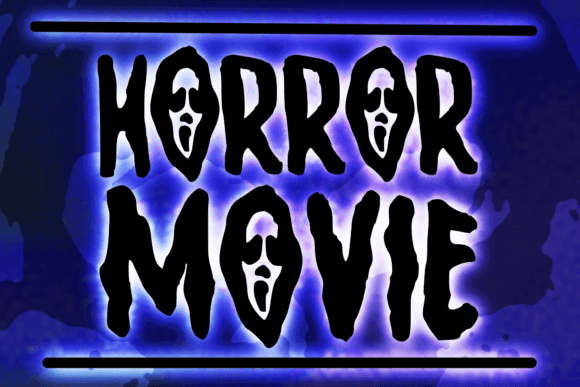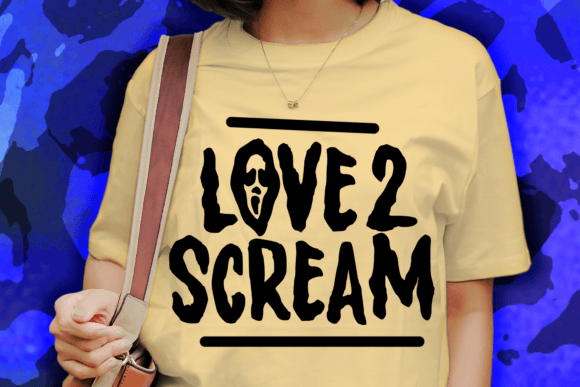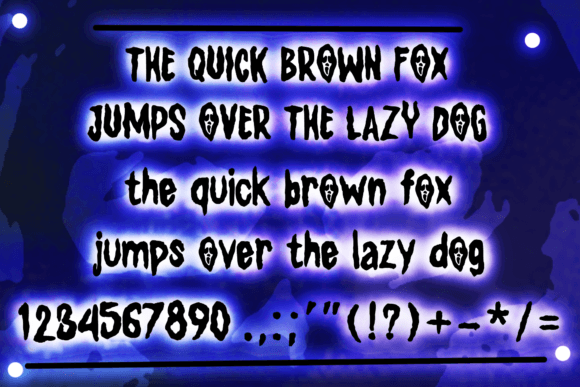
Introduction to Ghost Grim Font
Ghost Grim is a cool font inspired by vintage slasher horror movies and horror comics.
It will be perfect for your horror and Halloween themed needs You can use it for anything ranging from merchandise like t-shirts and clothing, for your scary book designs, Halloween party needs, greeting cards, stickers, posters, banners, or anything that needs a horror touch.